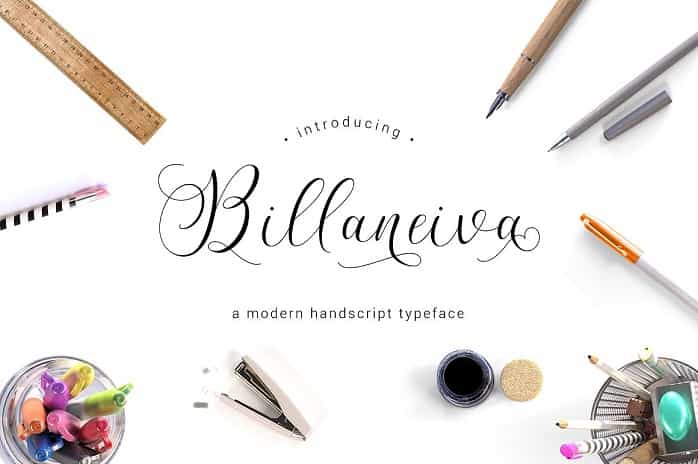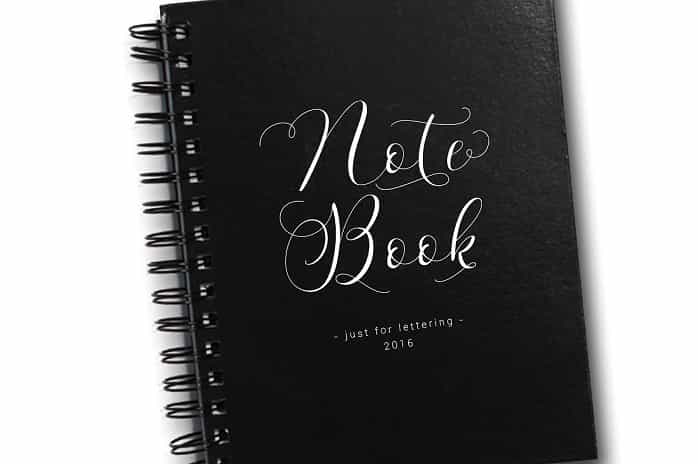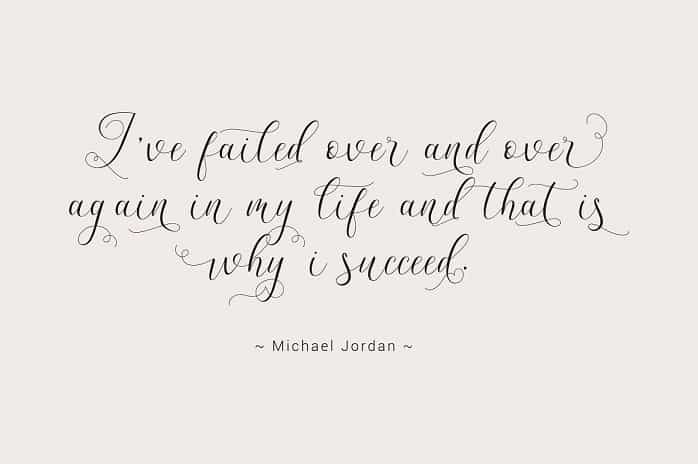
Introducing Billaneiva Font. Billaneiva typeface – easy to make and creates stunning lettering, you just need to type your words and then you will immediately see the great results. Billaneiva will be a great fit for fashion, e-commerce brands, trend blogs, wedding boutiques or any business that wants to look classy and elegant.